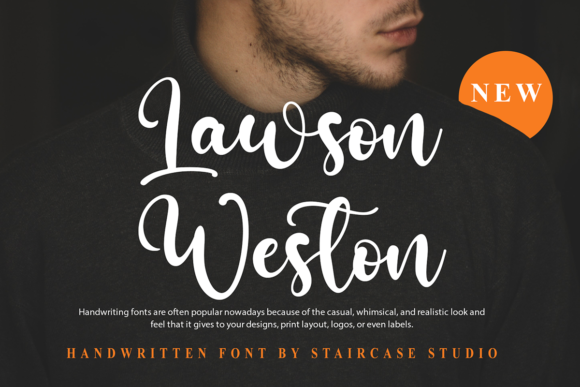
Dive into the world of Lawson Weston Script, a captivating font family designed to bring your creative visions to life. With its enchanting ligatures, this script dances across the page, leaving a trail of elegance in its wake. Its carefully crafted curves and delicate flourishes exude a timeless charm that's sure to add a touch of class to your next project.
Lawson Weston isn't just a collection of letters and numbers; it's an invitation to express yourself in ways you never thought possible. Whether you're crafting a heartfelt letter, designing a stunning logo, or creating a captivating social media post, Lawson Weston will elevate your words, making them sing with beauty and grace.
Don't settle for ordinary fonts. Embrace the extraordinary with Lawson Weston. Let its timeless allure transport you to new heights of creativity. As you effortlessly glide your fingers across the keyboard, feel the magic of Lawson Weston breathe life into your words, turning them into works of art.